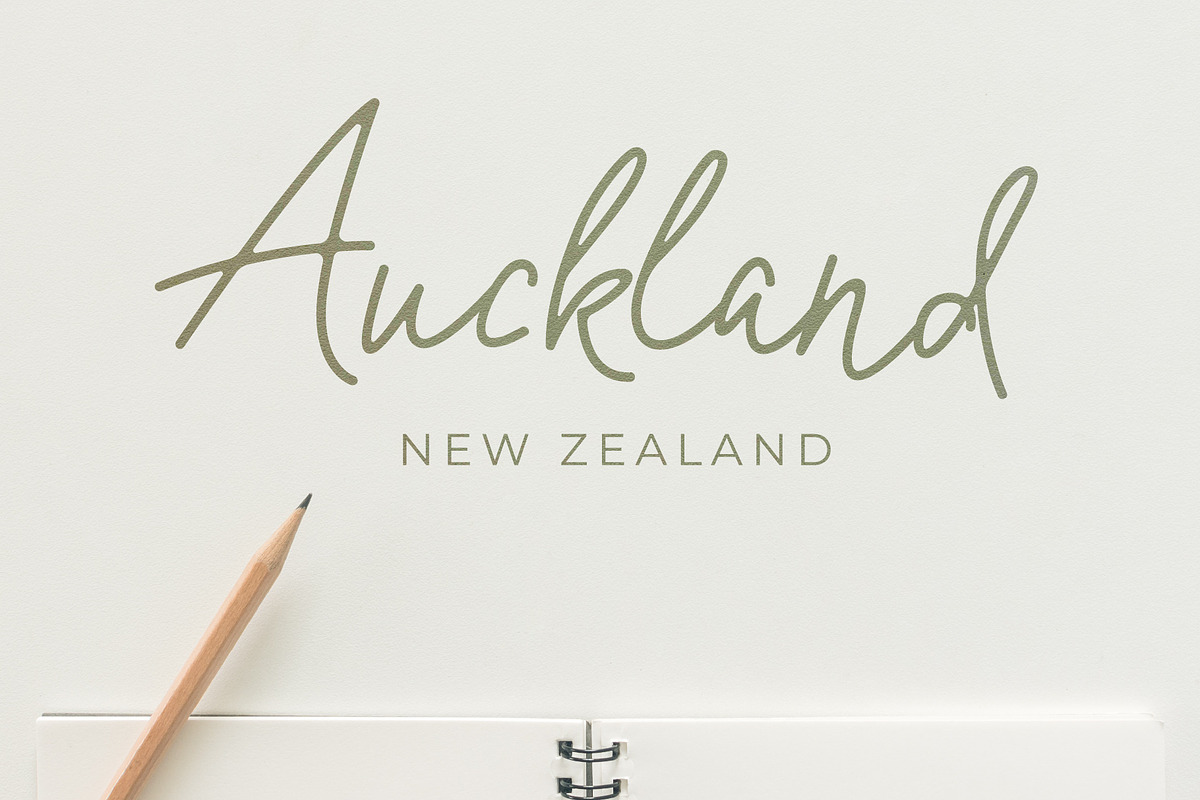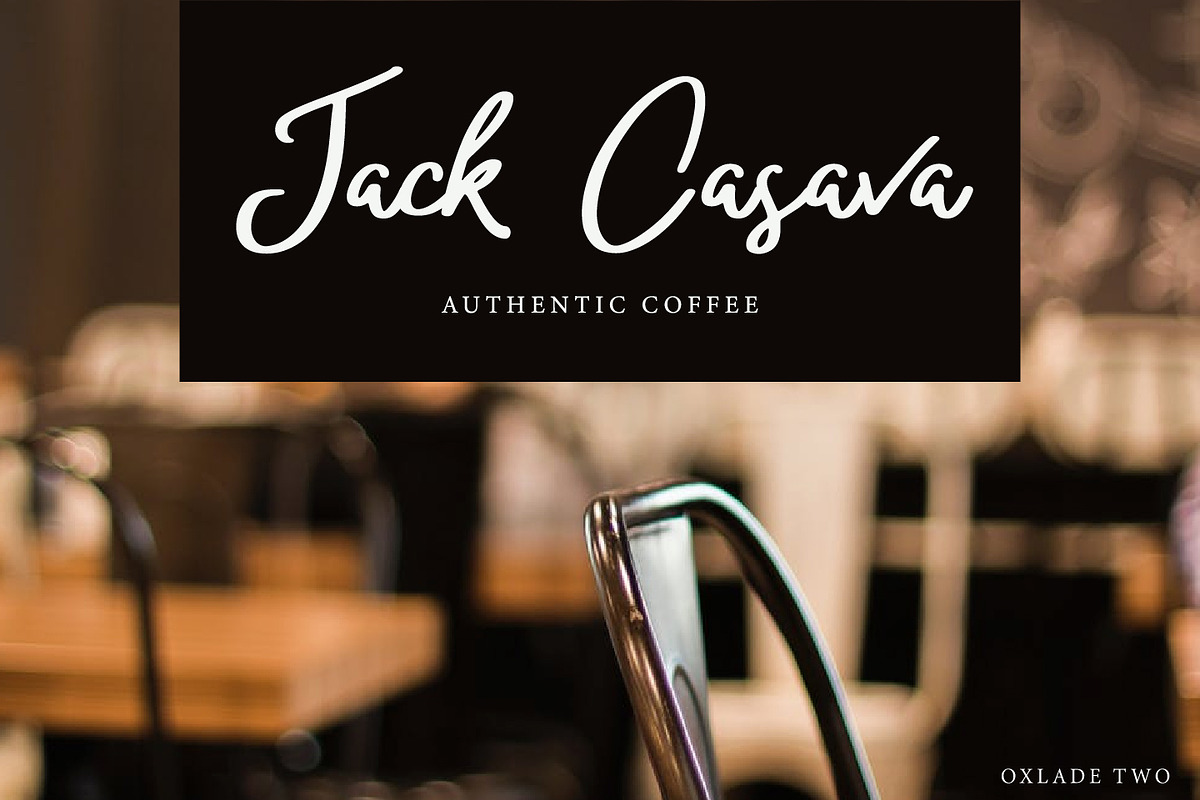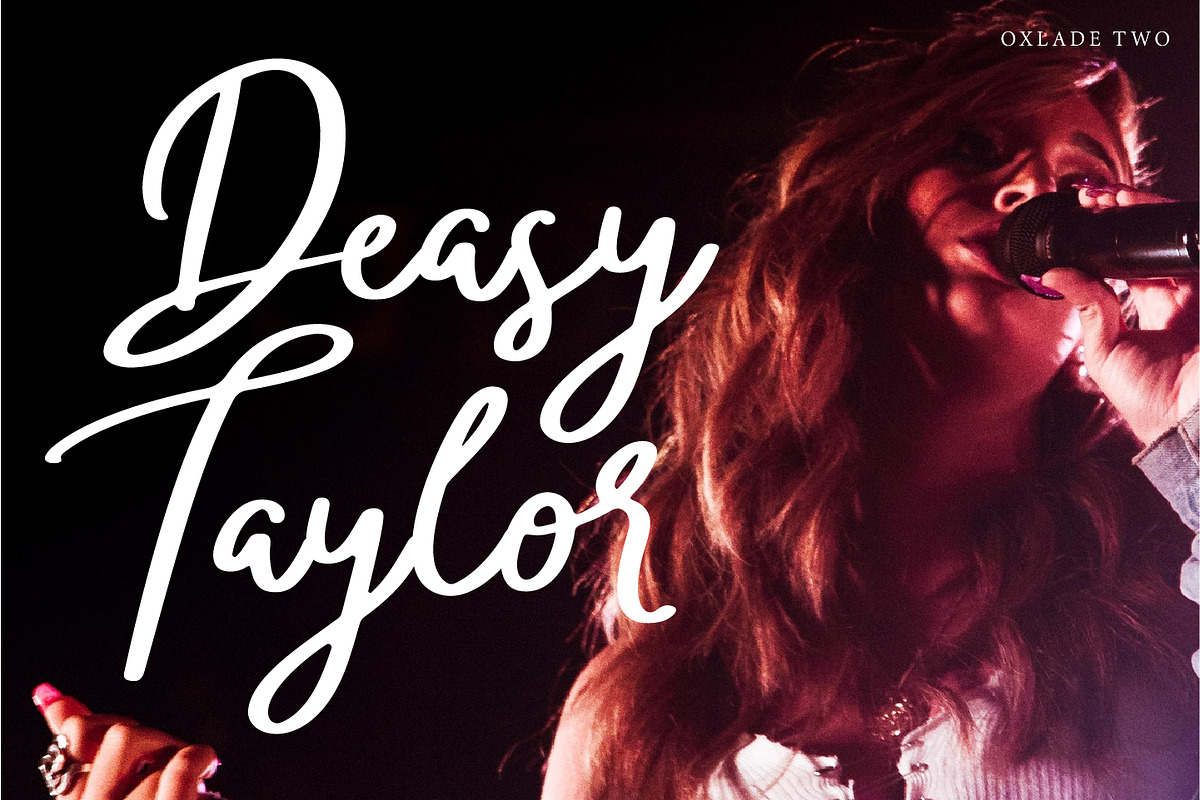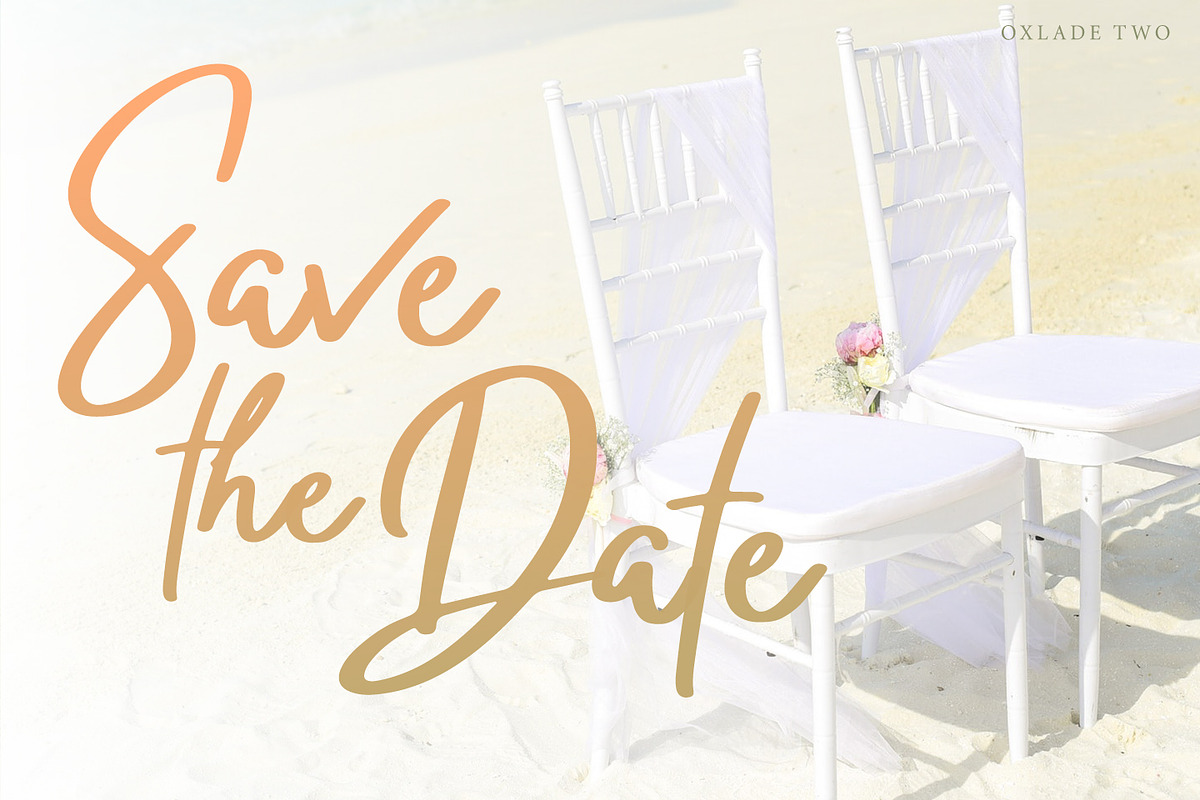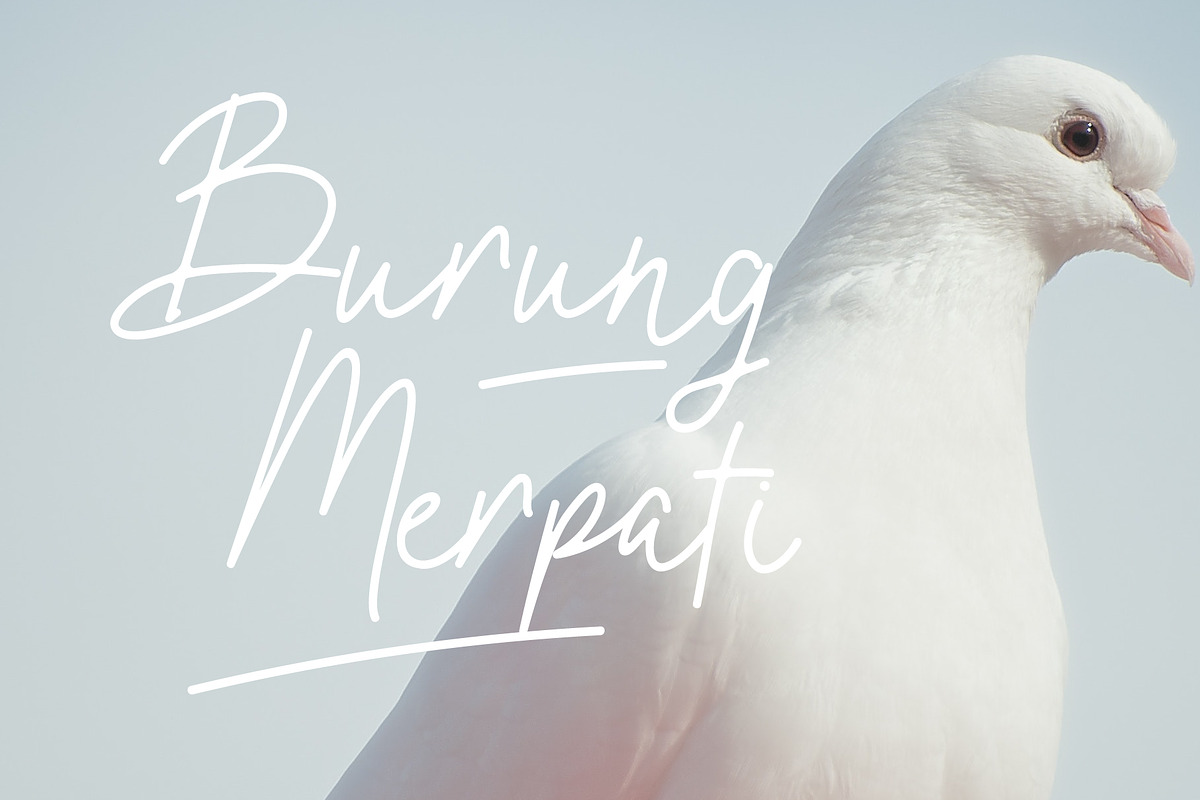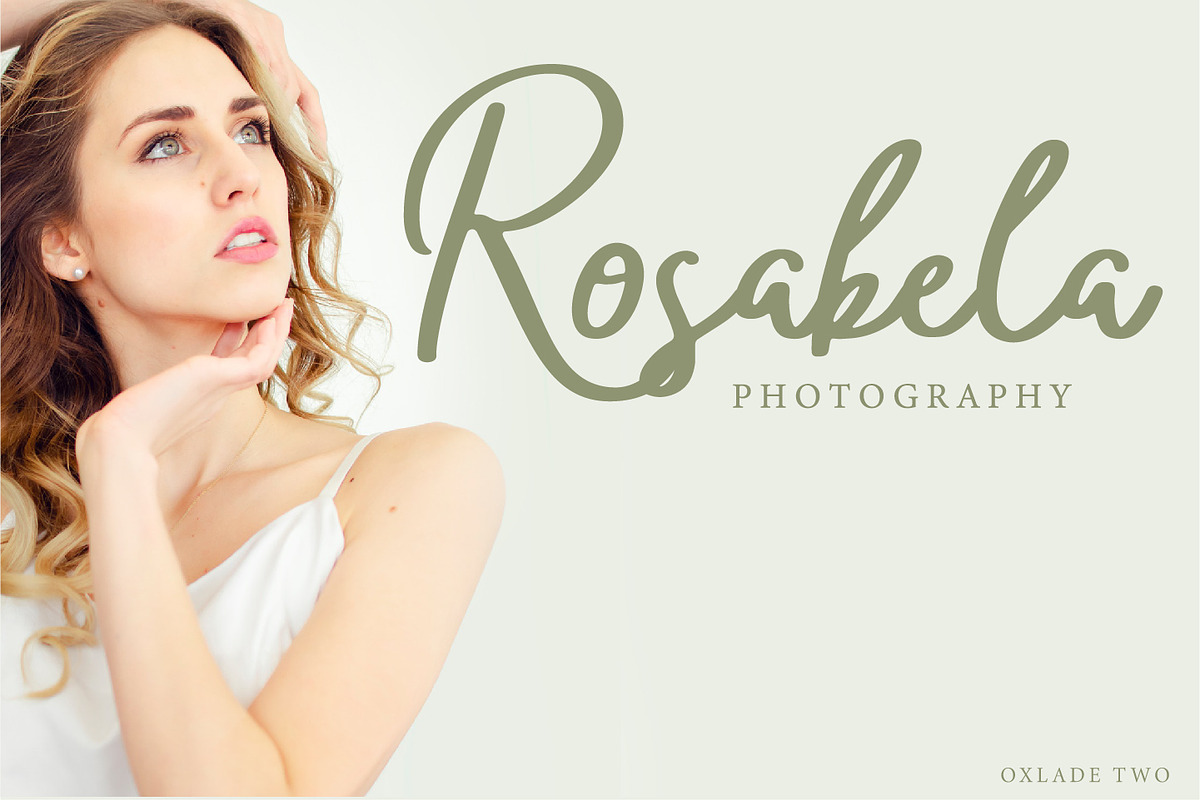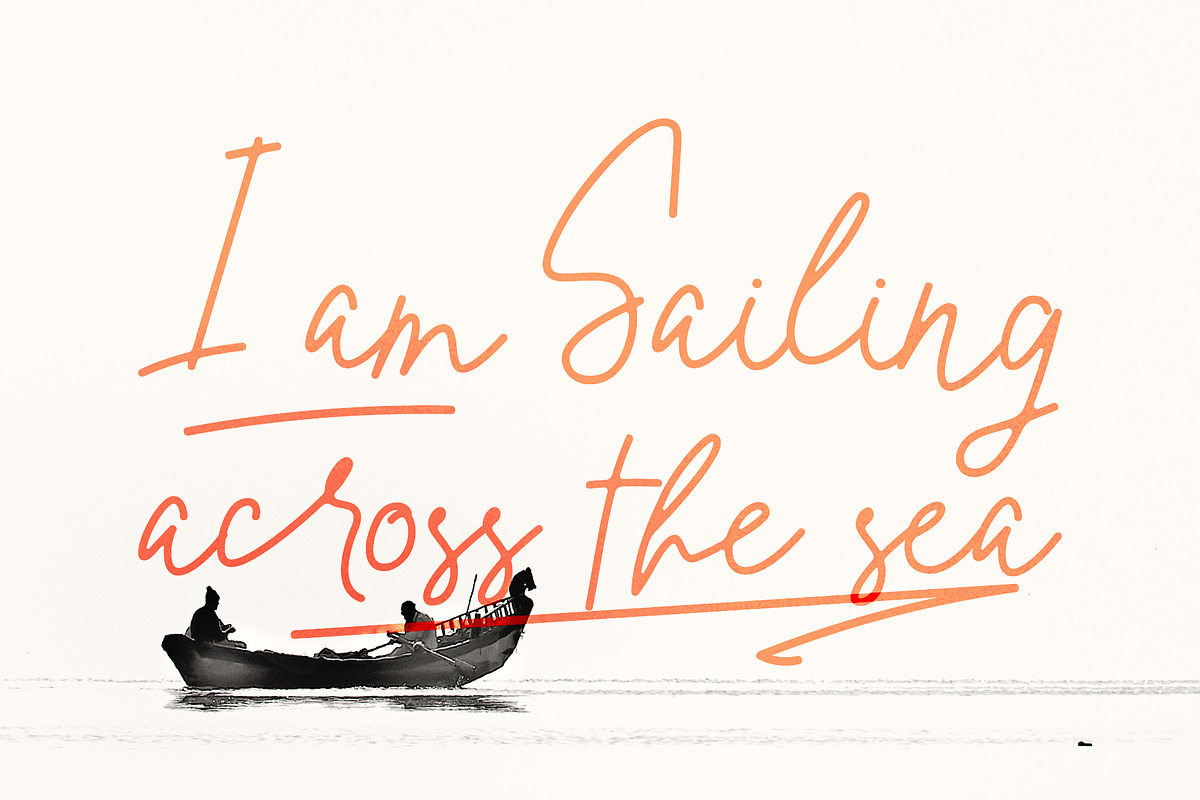
Oxlade Script Font
I'm a new handwritten signature font named Oxlade or you can call me Ox. I've been created to make signature easy for you. Also you can use Ox for logo type, packaging, product design and more.
Ligatures (klik the uppercase preview to see the ligatures)
- I feature : Uppercase Lowercase Number & Punctuation Ligatures (klik the uppercase preview to see the ligatures) Swashes Multi language My Z